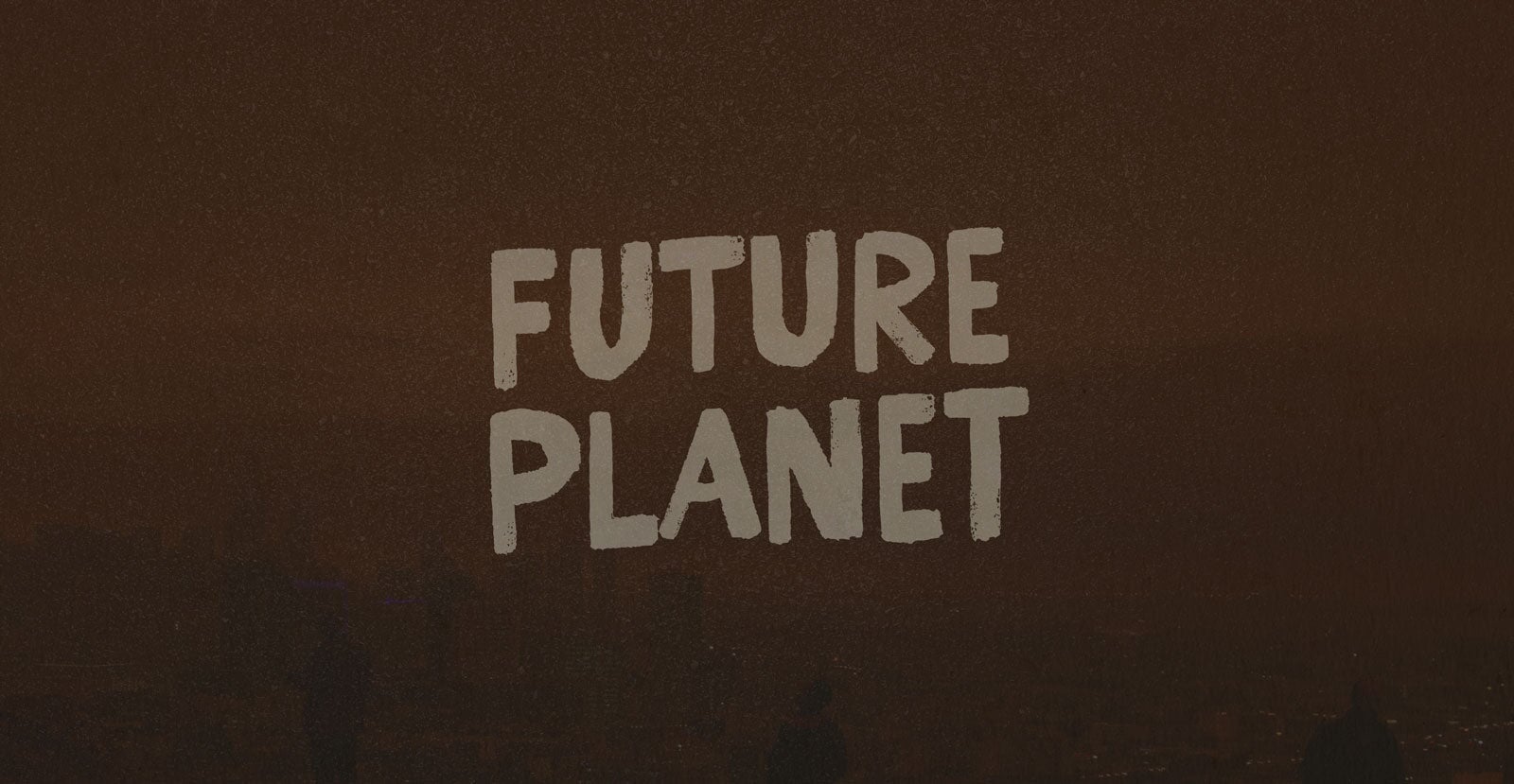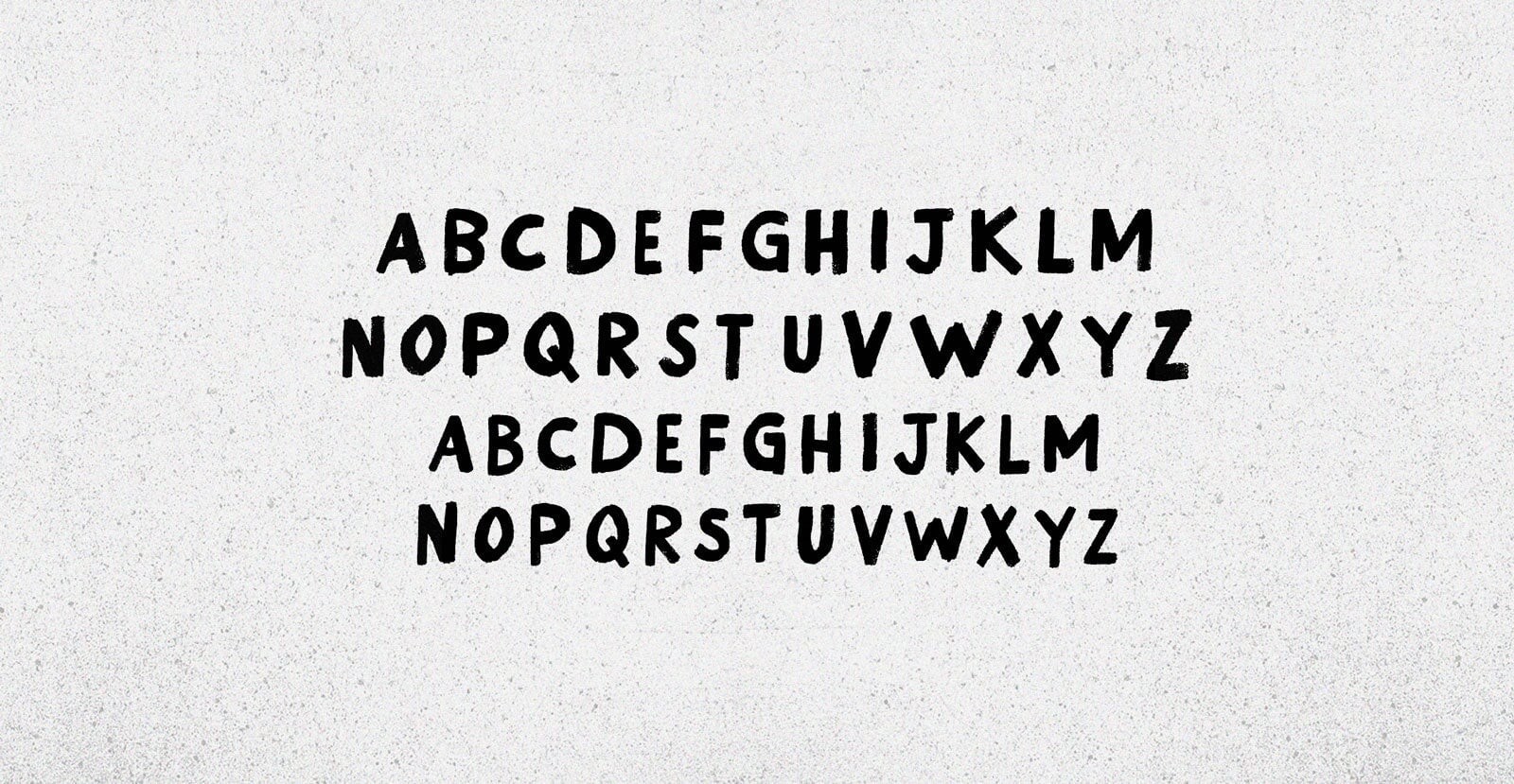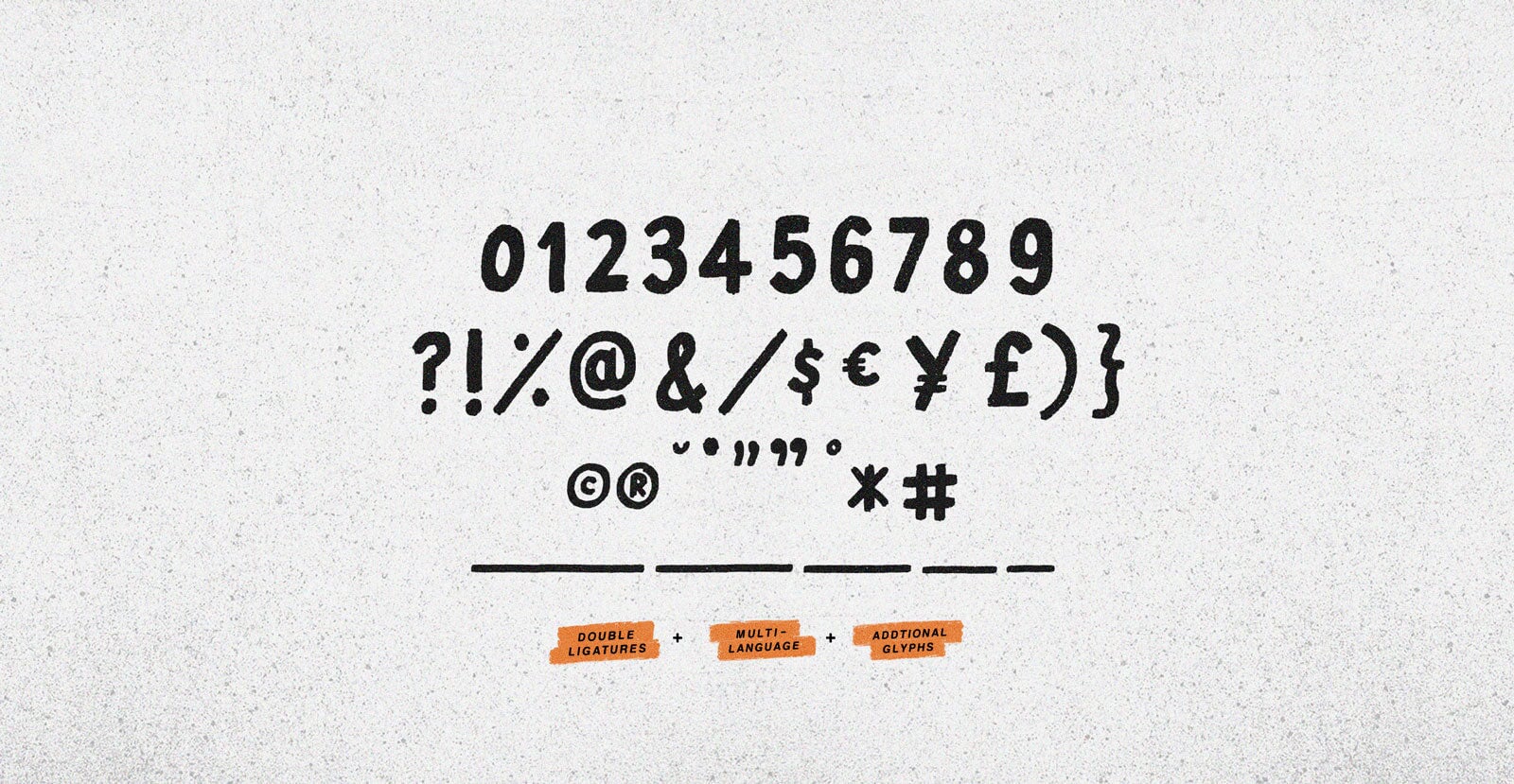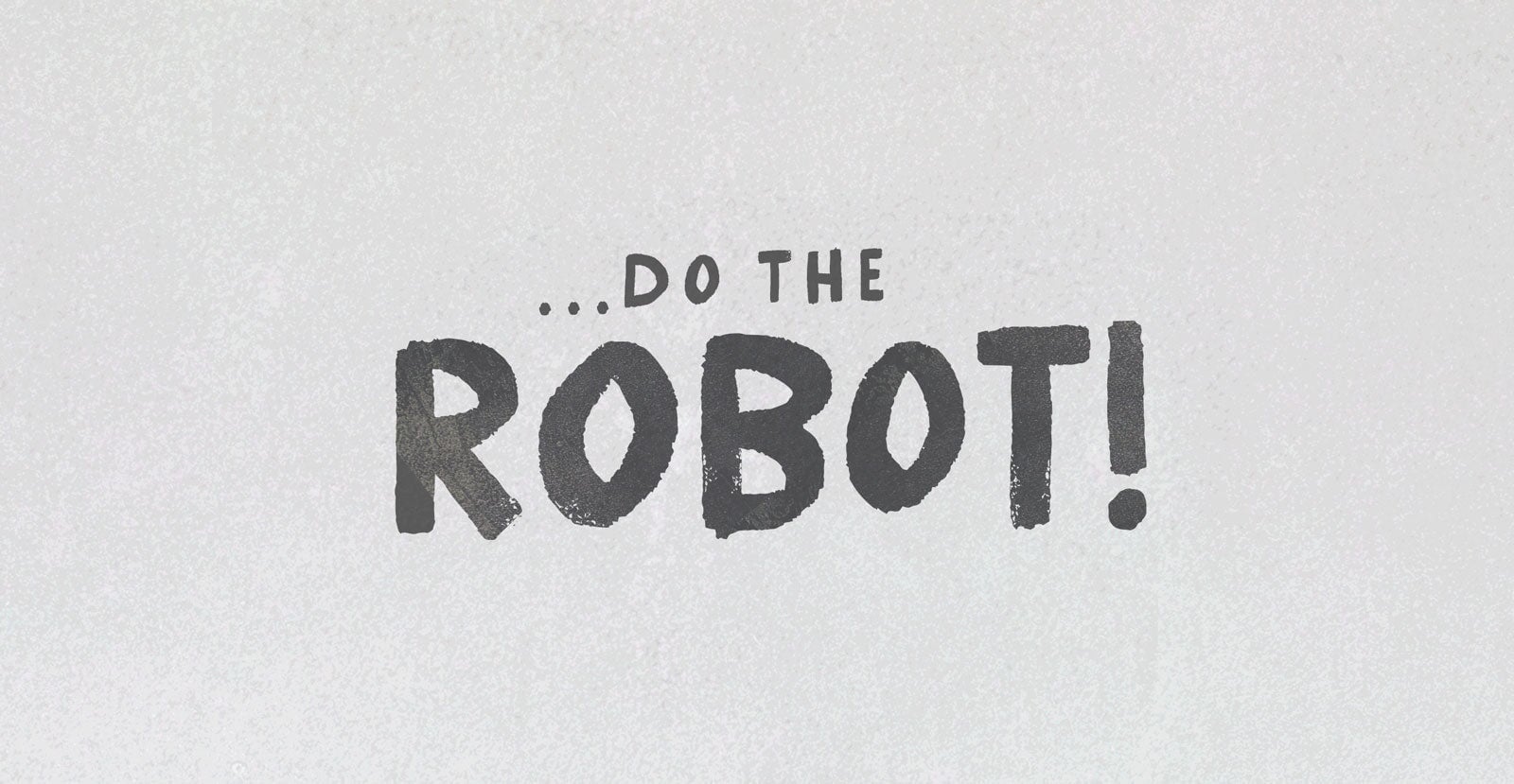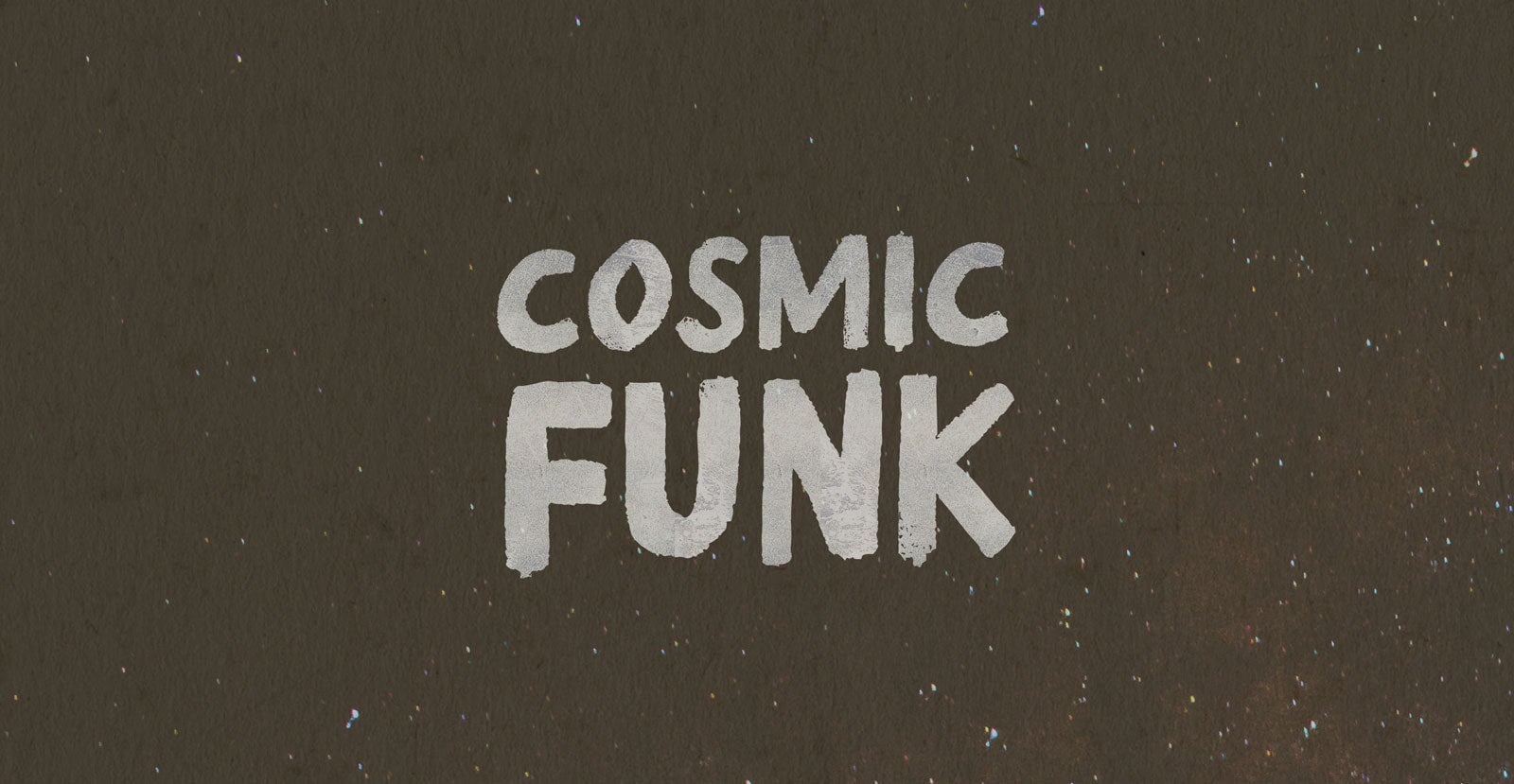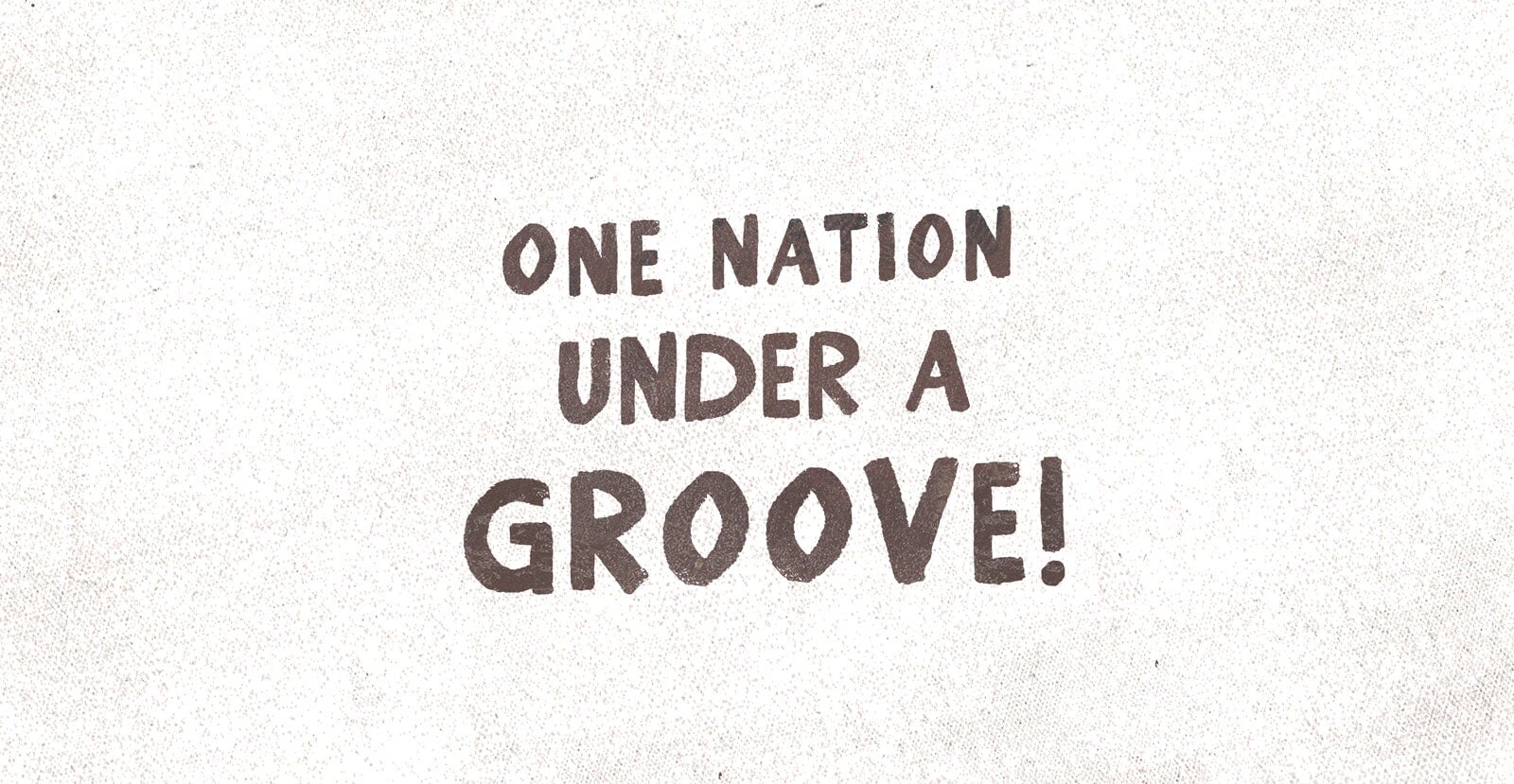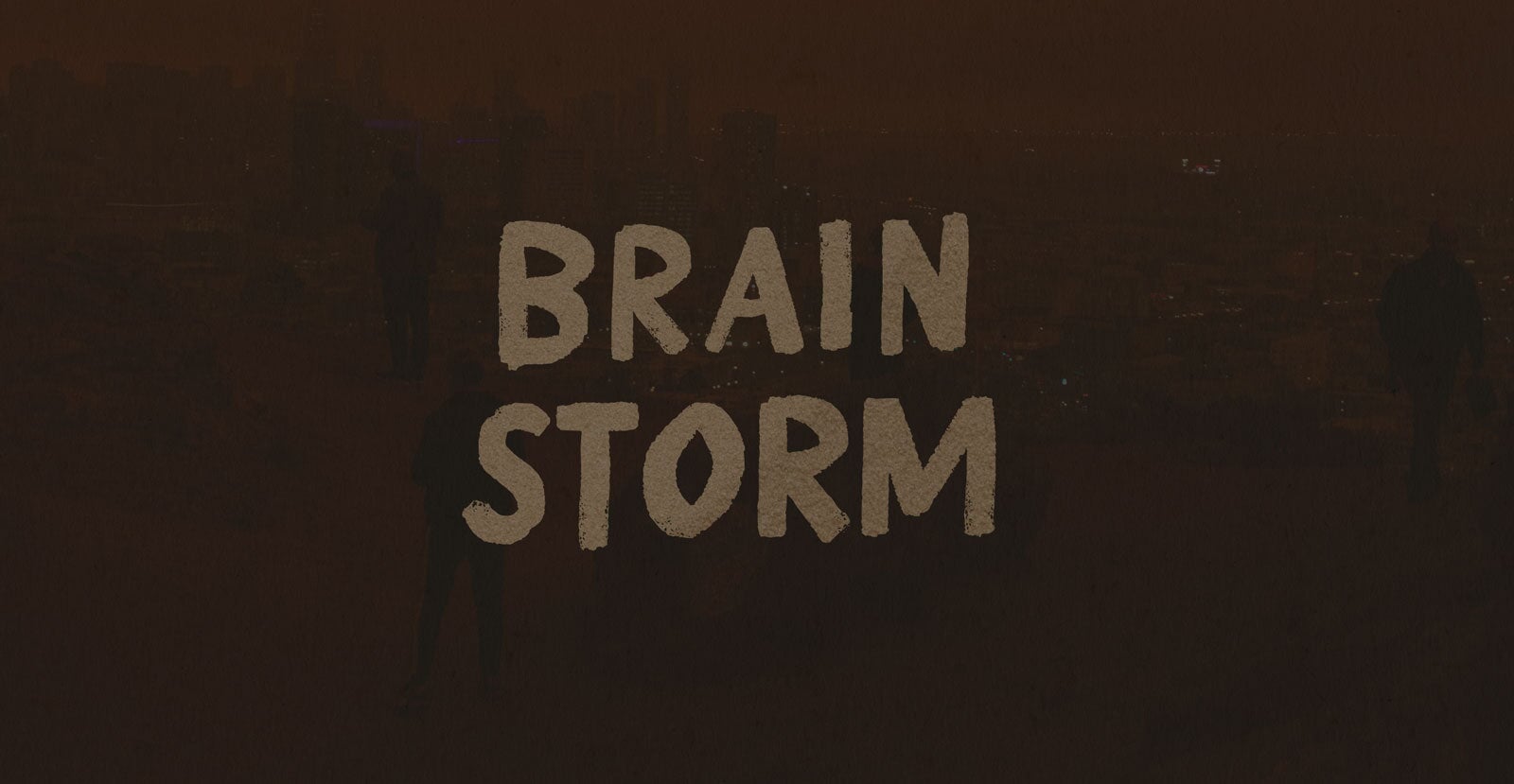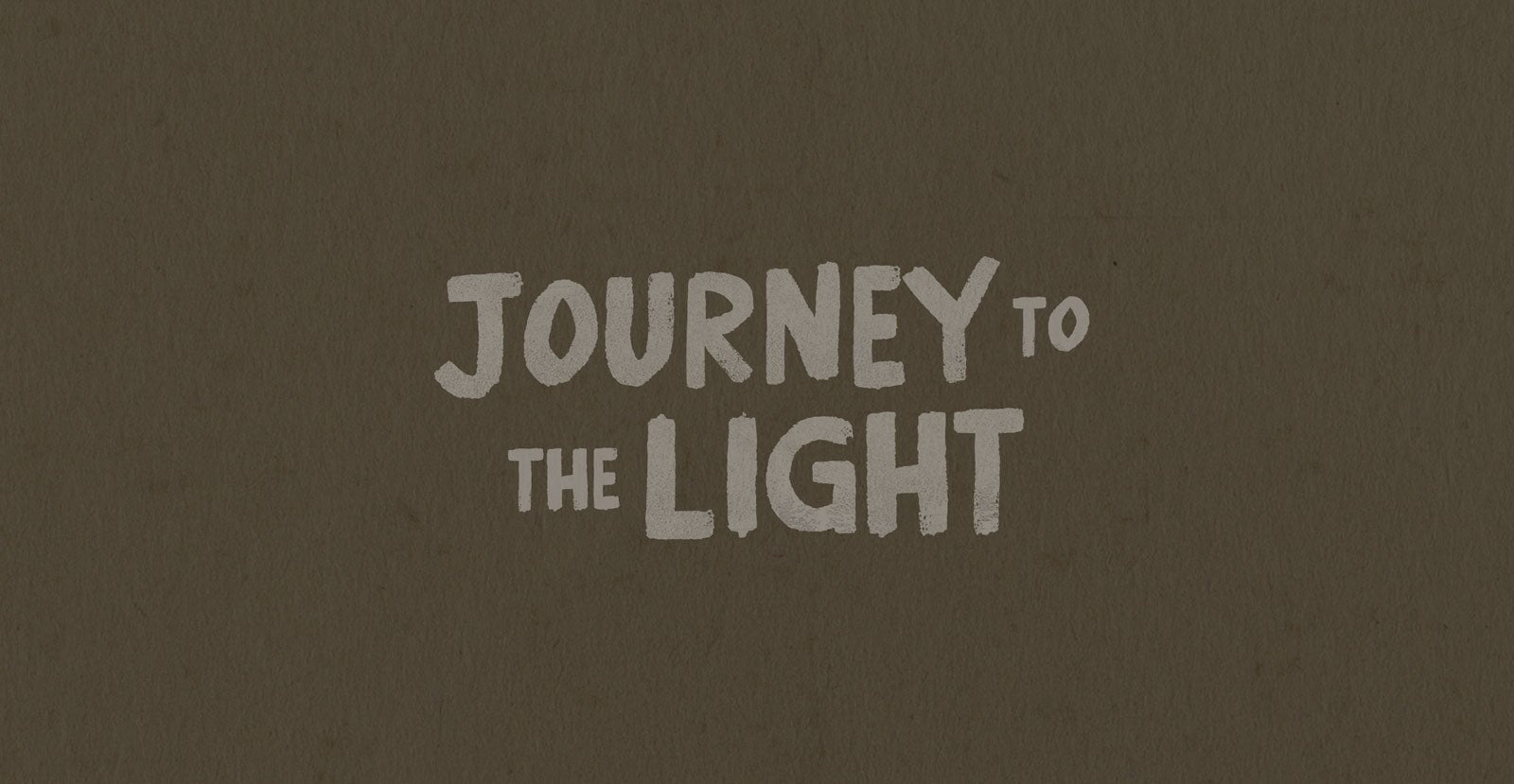
Future Planet
Future Planet hums with quiet momentum—a vision half-formed, half-remembered. It bends the edge of now into something just out of reach. Not a place, but a feeling—a signal from what’s next, already echoing back.